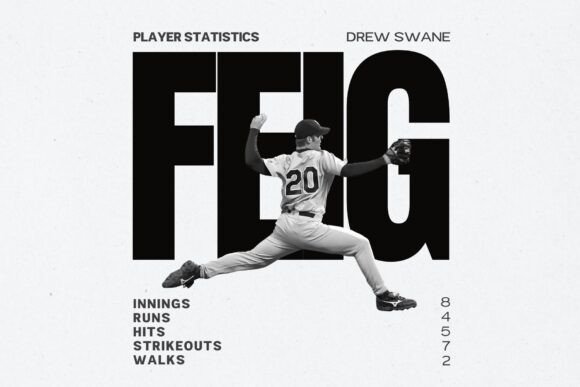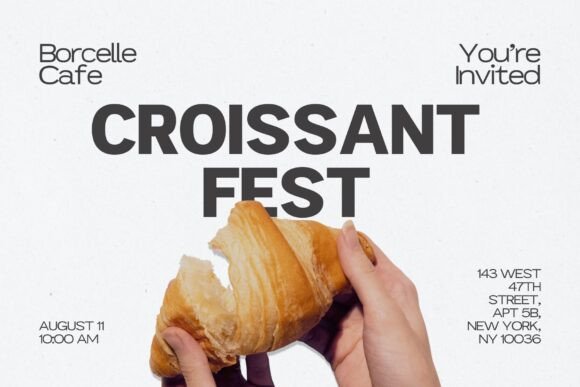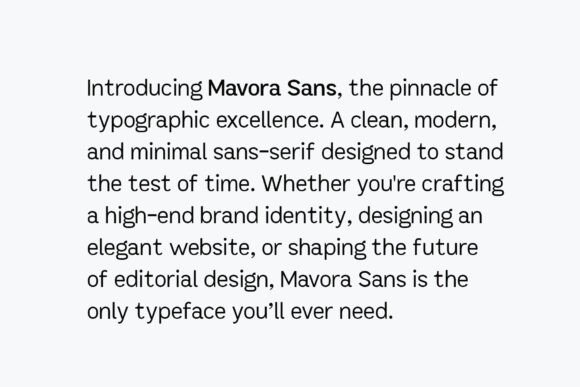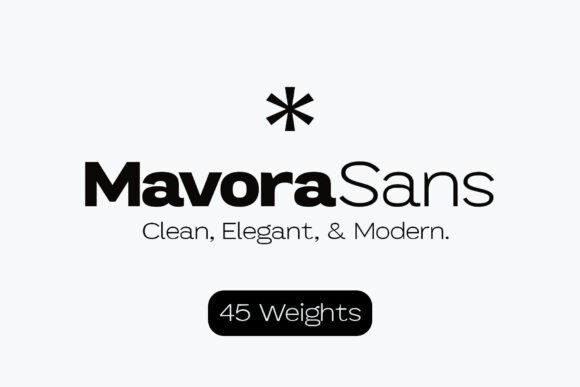
Mavora Sans Typeface Font
About the Mavora Sans Typeface Font
Introducing the Mavora Sans Typeface Font, a beautifully crafted typeface designed to elevate your creative projects. Introducing Mavora Sans, the pinnacle of typographic excellence. A clean, modern, and minimal sans-serif designed to stand the test of time. Whether you’re crafting a high-end brand identity, designing an elegant website, or shaping the future of editorial design, Mavora Sans is the only typeface you’ll ever need.
Mavora Sans comes in 45 meticulously crafted weights, offering unparalleled flexibility across five unique classes
Some fonts fade with time. Mavora Sans is forever. With a design that is timelessly modern, this is a typeface that will look just as stunning 100 years from now as it does today. Whether you’re creating for print, digital, UI/UX, branding, advertising, or signage, Mavora Sans adapts seamlessly to any project.
Mavora Sans Typeface Font Example